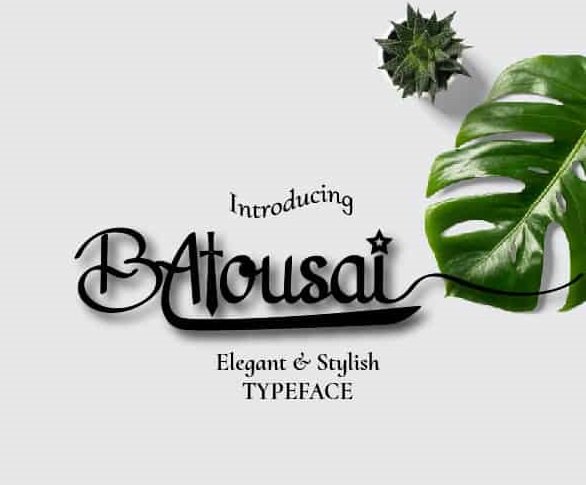
Batousai Font
Batousai Calligraphy Font
Batousai Calligraphy Font is elegant, classy, readable, stylish, catchy and easy to use. This Font is the great choice for watermark on photography, signature or signature logo design, quotes, album cover, business card, and many other design project.